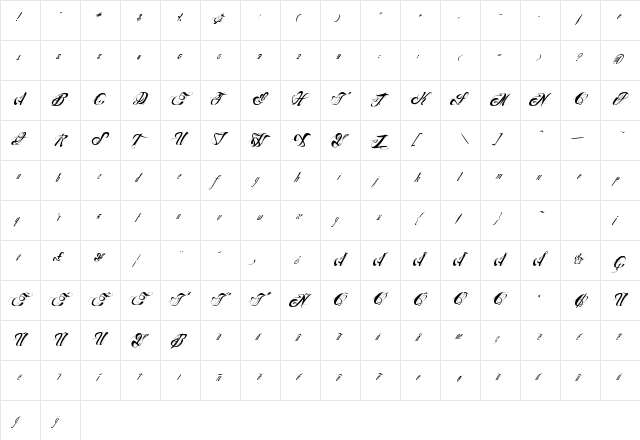
NuevoYork Regular
| Foundry | Xerographer Fonts |
| Designer | Xerographer Fonts Max Infeld |
Design Context for NuevoYork Typeface
NuevoYork is a composed and adaptable typeface that performs quietly and consistently across a wide range of design contexts.